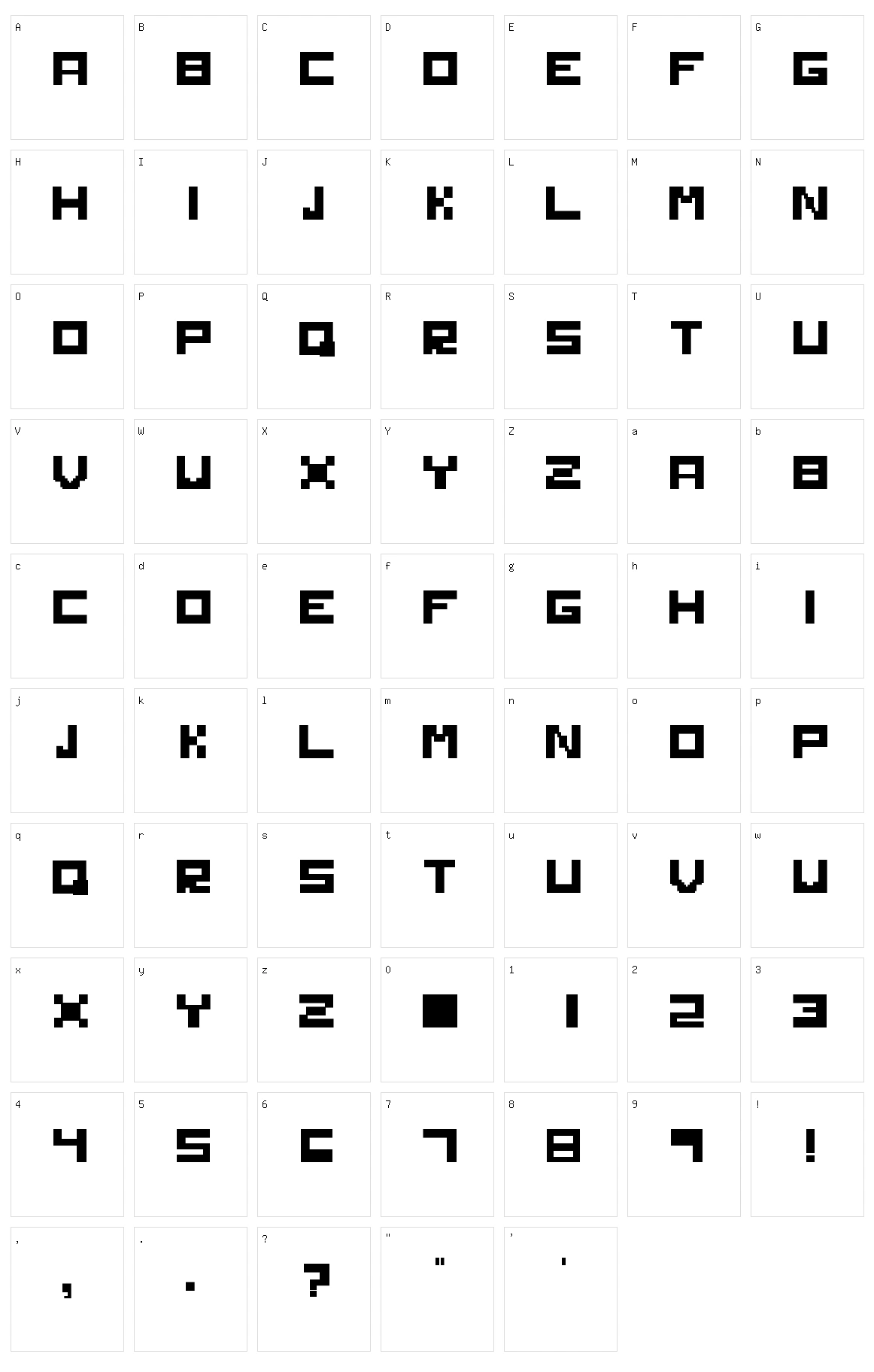
The free font Solid is carefully designed by Daniel Kash, showcasing a thoughtful balance of creativity and usability and falls under the Square font style. When you download the ZIP file, it contains only 3.49 KB of font files, making it lightweight and quick to download. Please review the license details below to understand permitted usage and distribution rights. If license information is not available, we recommend using this font for personal projects only or contacting the author directly for commercial usage permissions.